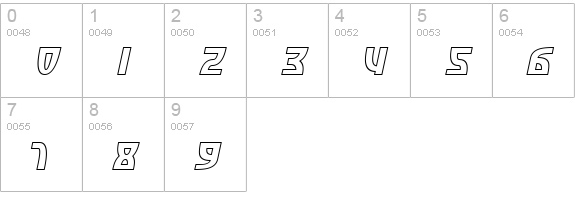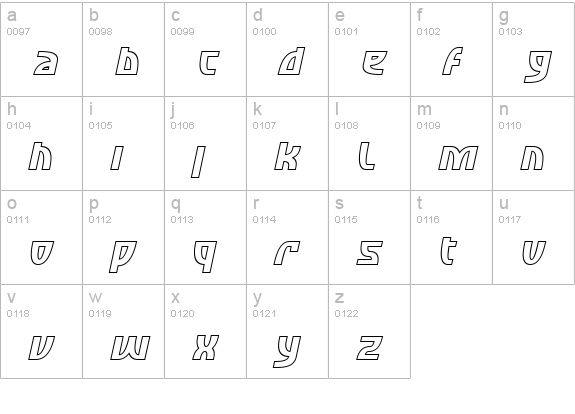
SF Retroesque Outline Oblique Font Details
SF Retroesque Outline Oblique is a distinctive, italic variant in the SF typeface family \xE2\x80\x94 well suited to design and typography projects.
SF Retroesque Outline Oblique is a stunning font that effortlessly combines the charm of retro aesthetics with a modern twist. With its bold and distinctive outlines, this font captures the essence of the past while adding a contemporary touch to any design project. The unique oblique angle of SF Retroesque Outline Oblique adds a sense of dynamism and energy, making it perfect for eye-catching headlines, logos, and posters. Its sharp edges and clean lines create a sense of precision and sophistication, allowing your designs to stand out from the crowd. What makes SF Retroesque Outline Oblique even more appealing is that it is available for free download at FontsMarket.com. Yes, you read that right, this exceptional font can be yours without spending a dime. Whether you're a professional designer looking to add a touch of retro flair to your latest project or a hobbyist seeking a font that evokes nostalgia, SF Retroesque Outline Oblique is the perfect choice. With its extensive character set, SF Retroesque Outline Oblique offers versatility and flexibility. It supports multiple languages, ensuring that your message can be communicated effectively to a global audience. Additionally, it includes various punctuation marks and special characters, allowing you to add that extra bit of creativity to your designs. The attention to detail in SF Retroesque Outline Oblique is evident in every letterform. The carefully crafted curves and angles create a harmonious balance, resulting in a font that is not only visually appealing but also easy to read. Whether it's used for headlines, body text, or even as an accent in your designs, SF Retroesque Outline Oblique will make a lasting impression. So why wait? Don't miss out on the opportunity to enhance your designs with SF Retroesque Outline Oblique. Download it for free at FontsMarket.com and unleash your creativity. Whether you're designing for print or digital media, this font will elevate your projects to new heights. Experience the nostalgia of the past with a touch of modern sophistication - SF Retroesque Outline Oblique is the font you've been waiting for.